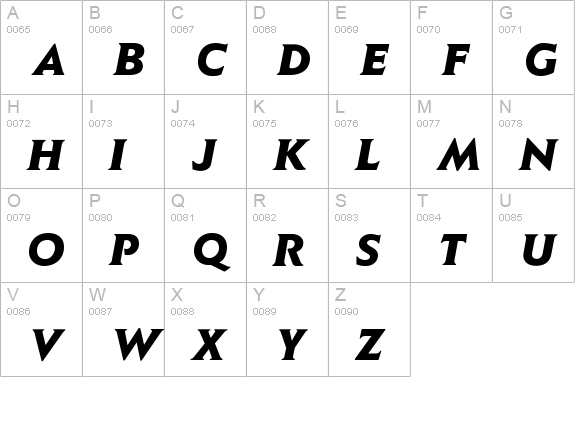
ElanBlackItalic is a stylish and elegant font that exudes sophistication and class. Its sleek and modern design makes it perfect for adding a touch of luxury to any project. The italicized characters give a sense of movement and flair, making this font ideal for creative designs and branding projects. The sharp, clean lines of ElanBlackItalic make it easy to read while still maintaining a sense of uniqueness and individuality. Best of all, ElanBlackItalic is available for free download at FontsMarket.com. This means you can easily access this stunning font and use it in your projects without any cost. Whether you're working on a website, logo, poster, or any other design project, ElanBlackItalic is sure to make a bold statement and elevate your work to the next level. Download this font today and add a touch of sophistication to your designs.